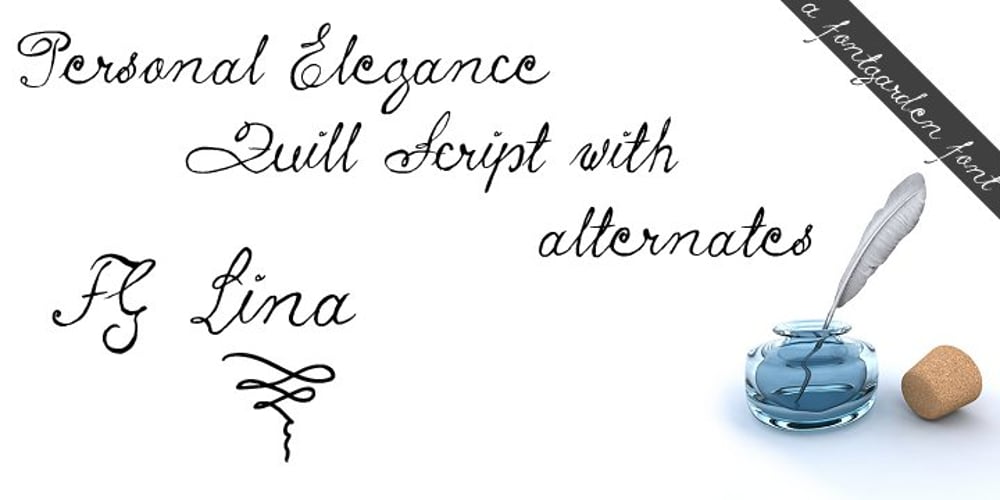
FG Lina
FG Lina font
FG Lina Font Family was designed by published by YOFF. FG Lina contains 1 styles and family package options. FG Lina was inspired by an old handwritten book I found in the library. It contains some alternate caps characters and some rough lowercase characters. I had lots of fun designing the missing characters to fit in the script. I hope you will enjoy this Quill Script font!